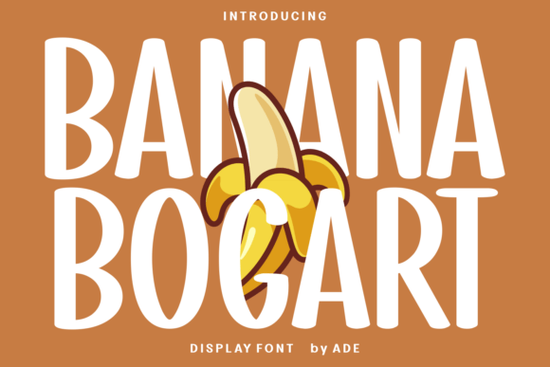
If you're looking for a display font that’s equal parts playful and practical, Banana Bogart Font might be exactly what your next project needs. Designed with hand-drawn charm and a retro bounce, it’s the kind of typeface that adds instant personality without sacrificing legibility. Whether you’re designing stickers for Etsy, crafting greeting cards, or building a quirky brand identity, Banana Bogart brings warmth and whimsy to every letterform.
What makes Banana Bogart stand out from other display fonts?
Unlike many cartoon-style fonts that lean too far into silliness, Banana Bogart strikes a smart balance. Its bubbly, rounded characters feel friendly and approachable but they’re also bold enough to hold their own on packaging, apparel, or social media graphics. The subtle doodle-like details give it texture and depth, making it more interesting than a flat, generic bubble font.
It includes a full set of uppercase and lowercase letters, numbers, and punctuation, so you’re not limited to headlines or single words. That versatility means you can use it for everything from quote posters to product labels especially if your audience skews toward kids, moms, or anyone who appreciates lighthearted design.
Who should consider using this font?
Banana Bogart works especially well for:
- Print-on-demand sellers creating T-shirts, mugs, or tote bags with cheerful slogans
- Small businesses in food, crafts, or lifestyle niches wanting a memorable logo
- DIY crafters working with vinyl cutters or sublimation printing
- Graphic designers building mood boards for summer campaigns, baby showers, or holiday collections
Because of its gentle curves and high readability (even at smaller sizes), it’s also great for wall art or nursery decor where you want something cute but not overly juvenile.
How does it compare to similar fonts on Creative Fabrica?
But Banana Bogart sits in a sweet spot: it’s neither too girly nor too goofy. It’s just right for designs that need to feel joyful without trying too hard.
Real-world uses that actually work
You don’t need a big budget or advanced skills to put this font to good use. Here are a few proven applications:
- Greeting cards for birthdays, Mother’s Day, or “just because” notes the thick lines print beautifully
- Sticker sheets for planners or water bottles; the rounded shapes cut cleanly on Cricut or Silhouette machines
- Children’s book covers or activity pages where friendliness matters more than formality
- Farmers market signage or homemade jam labels its organic, handcrafted feel fits rustic and modern aesthetics alike
And yes, it even holds up during the holidays. Try pairing it with snowflake graphics for Christmas tags or floral elements for spring-themed invitations.
Tips for getting the most out of Banana Bogart
Because it’s a bold display font, avoid using it in long paragraphs. Stick to headlines, short quotes, or accent text. Pair it with a simple sans-serif (like Montserrat or Open Sans) for contrast and clarity. Also, take advantage of its full character set mix uppercase and lowercase for a more natural, handwritten rhythm.
If you’re using it in SVG or digital cut files, test spacing first. The generous letterforms may need slight tracking adjustments depending on your software.
- Is my design meant to feel warm, upbeat, or nostalgic?
- Will the text be short and impactful (not body copy)?
- Do I need a font that cuts well for physical crafts or prints crisply on fabric?
If you answered “yes” to most of these, Banana Bogart is likely a smart, stylish fit and a fun one at that.